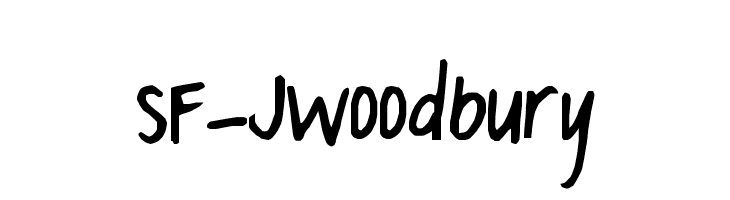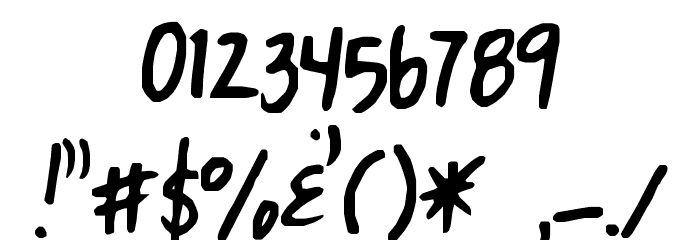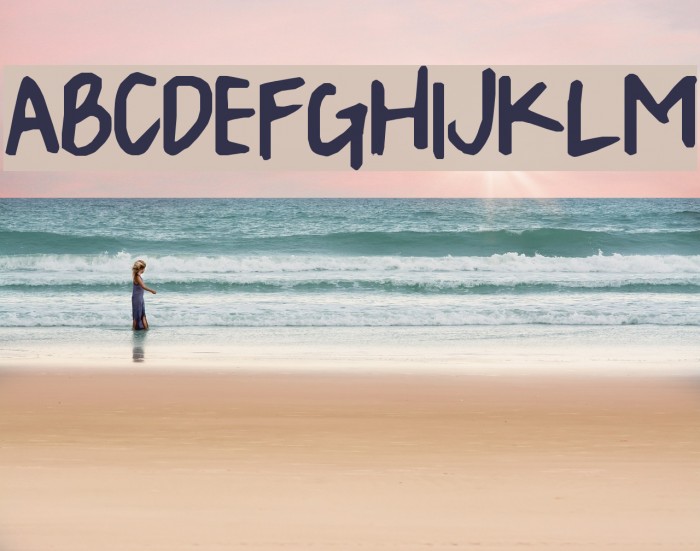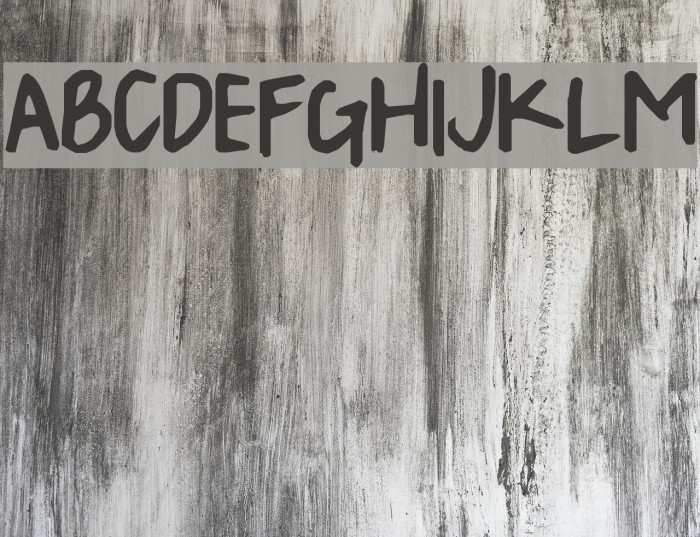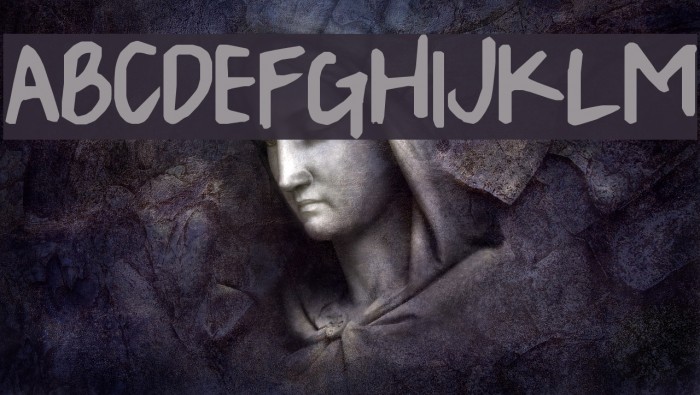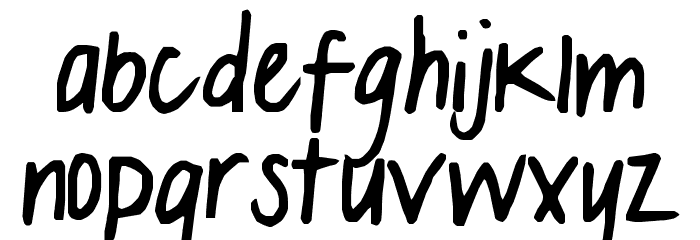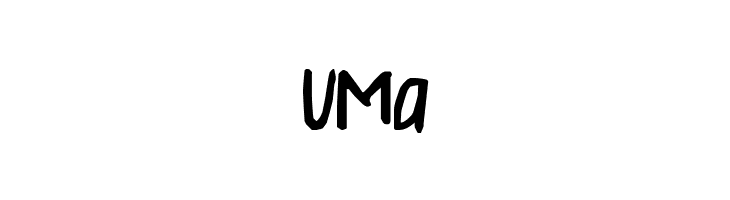
SF-JWoodbury Font
This font features a playful and casual handwritten style, characterized by its irregular strokes and slightly tilted letters. The uppercase letters are bold and prominent, while the lowercase letters maintain a consistent flow with a touch of whimsy. The numbers and special characters follow the same informal aesthetic, making the font suitable for creative and informal designs. The overall appearance is approachable and friendly, with a touch of spontaneity that adds personality to any project.
A playful, handwritten font with an informal and friendly style.
• Proposed Projects: Ideal for greeting cards, children's books, casual branding, and social media graphics.
• Category: Handwritten
• Overall Style: Casual
• Use Case: Headlines, Informal text, Creative projects